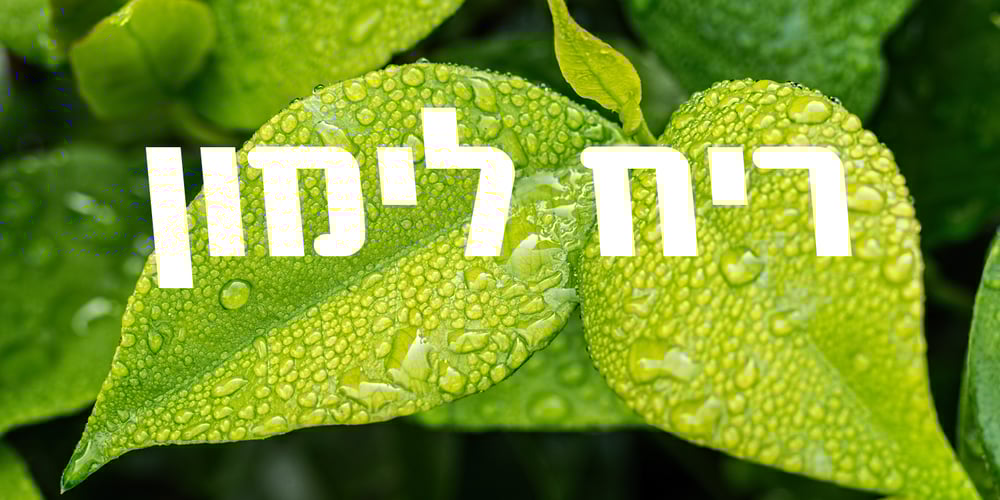
Butterfly MF
Butterfly MF font
Butterfly MF Font Family was designed by Zvika Rosenberg and published by Masterfont. Butterfly MF contains 3 styles and family package options. A practical font family with 3 weights for all your day by day design needs: headlines, web, signage etc.An extended sans serif typeface with rounded endings that provides unique softness appearance without losing legibility.